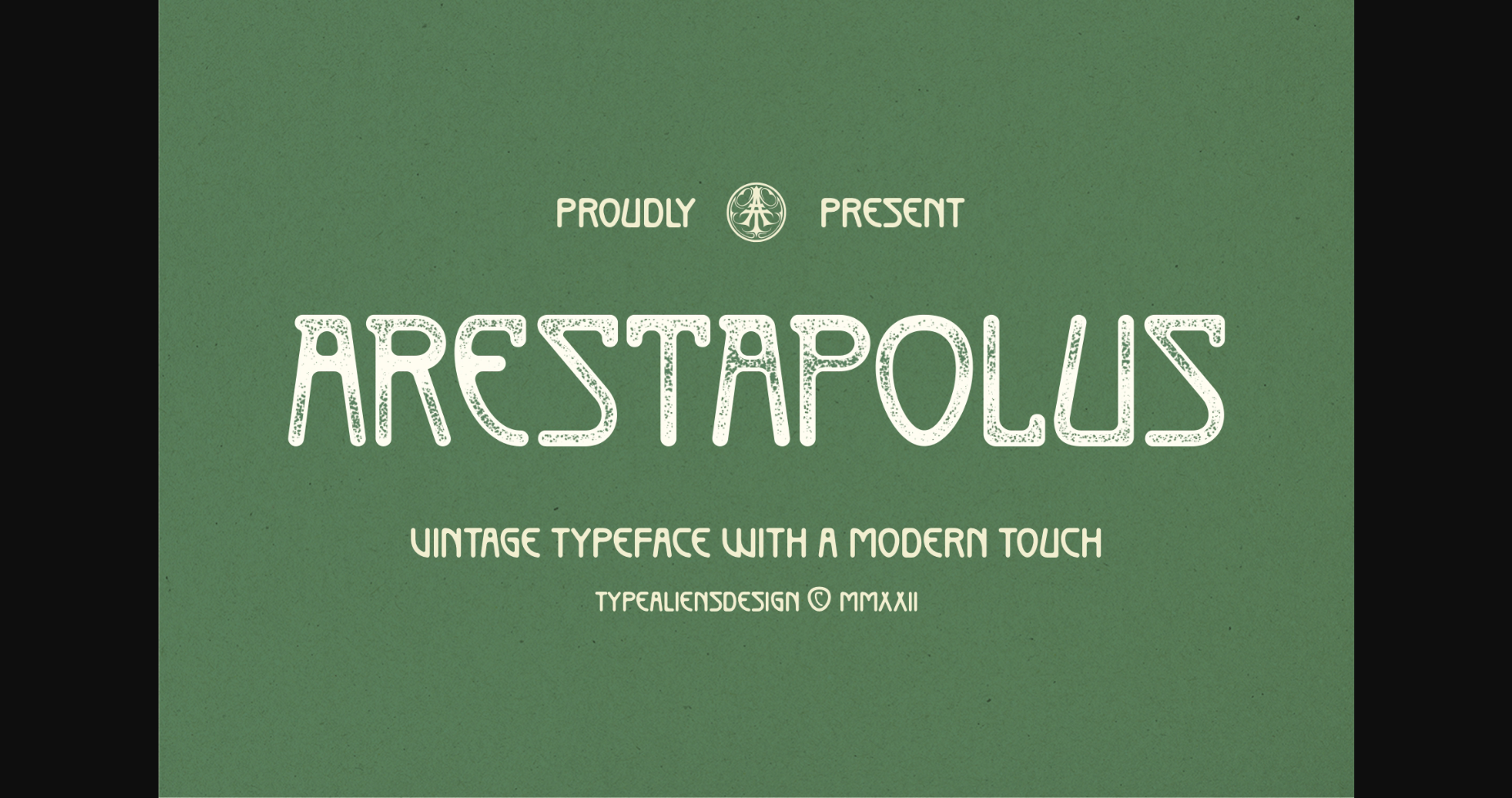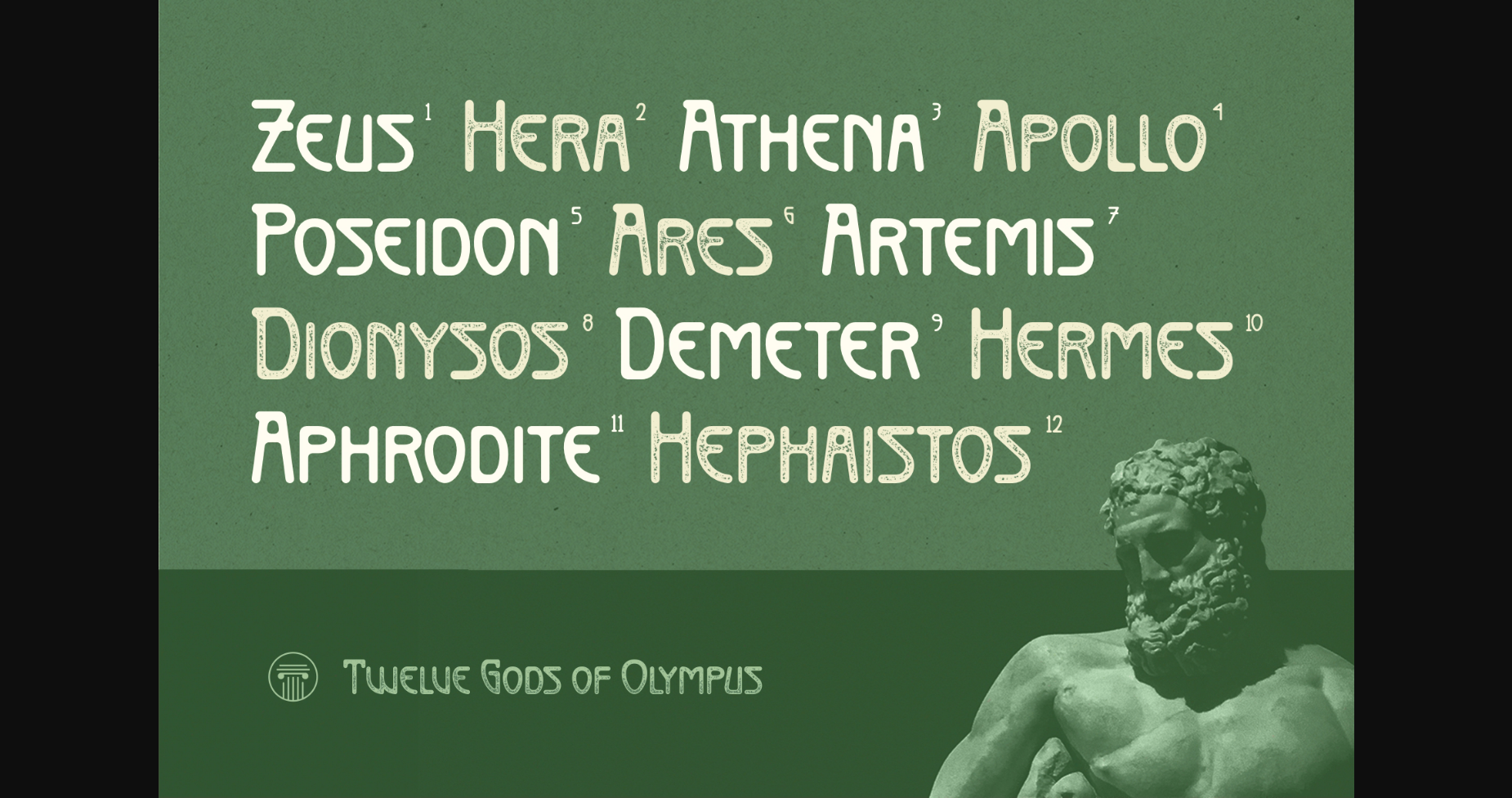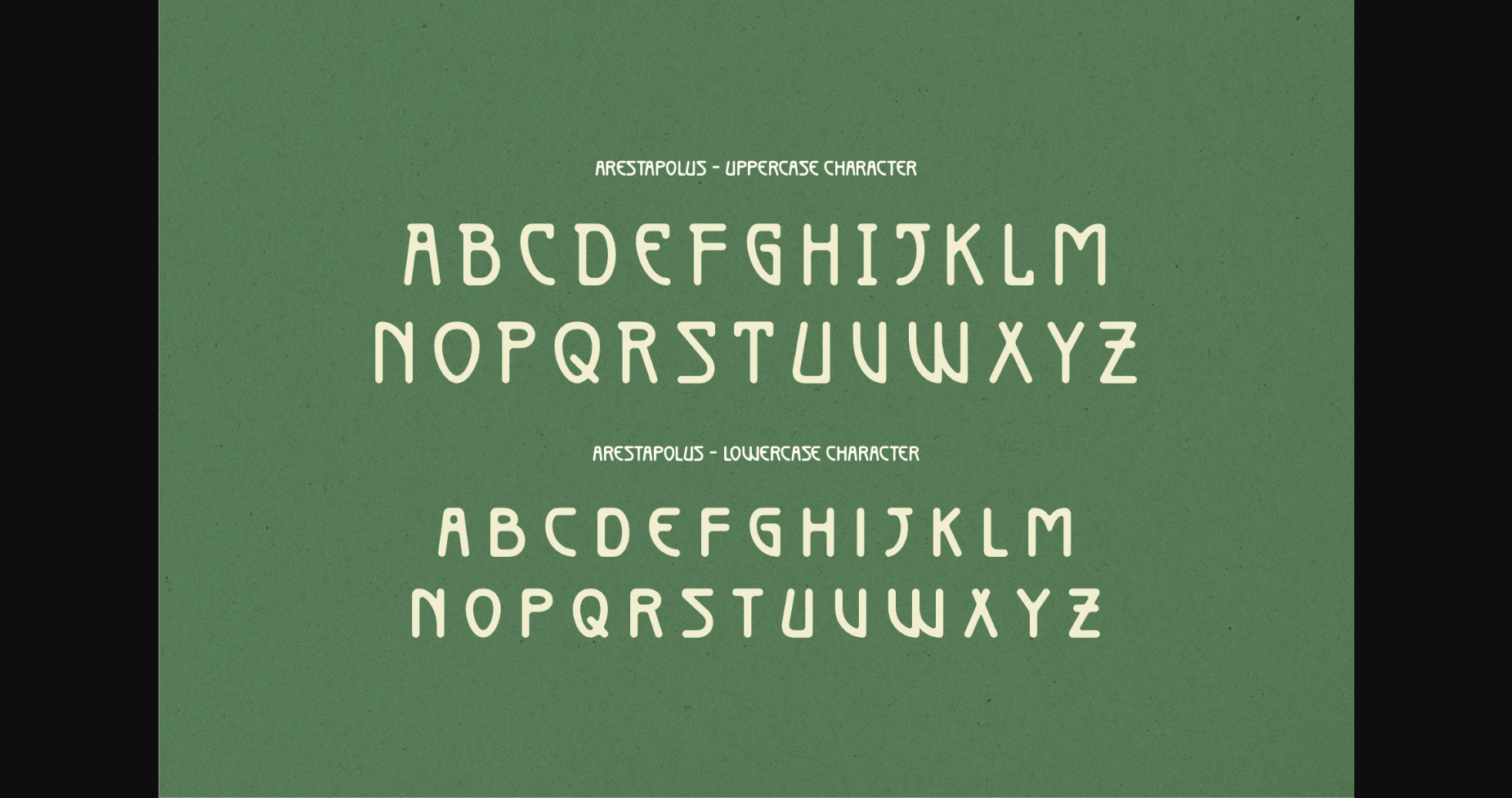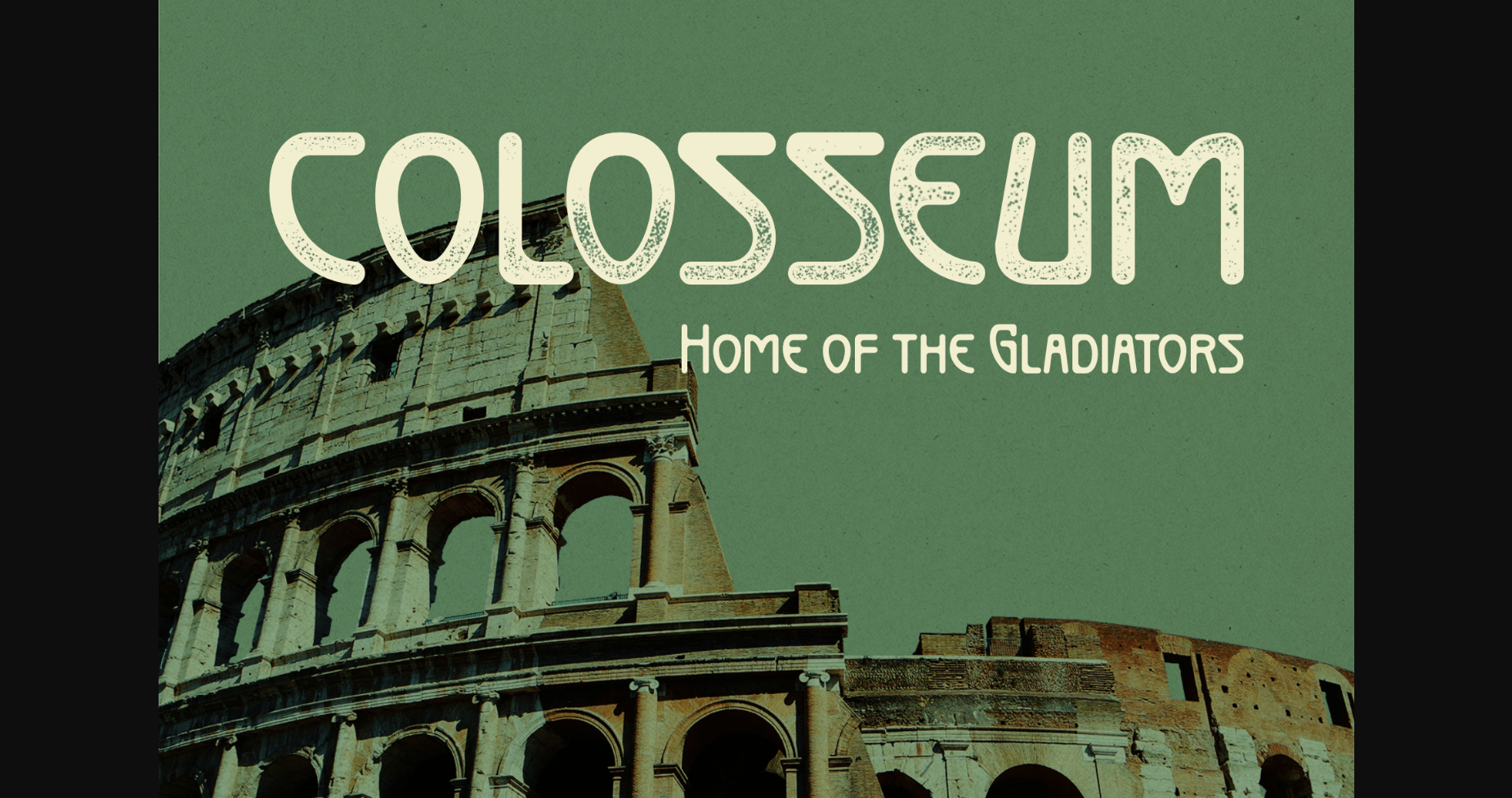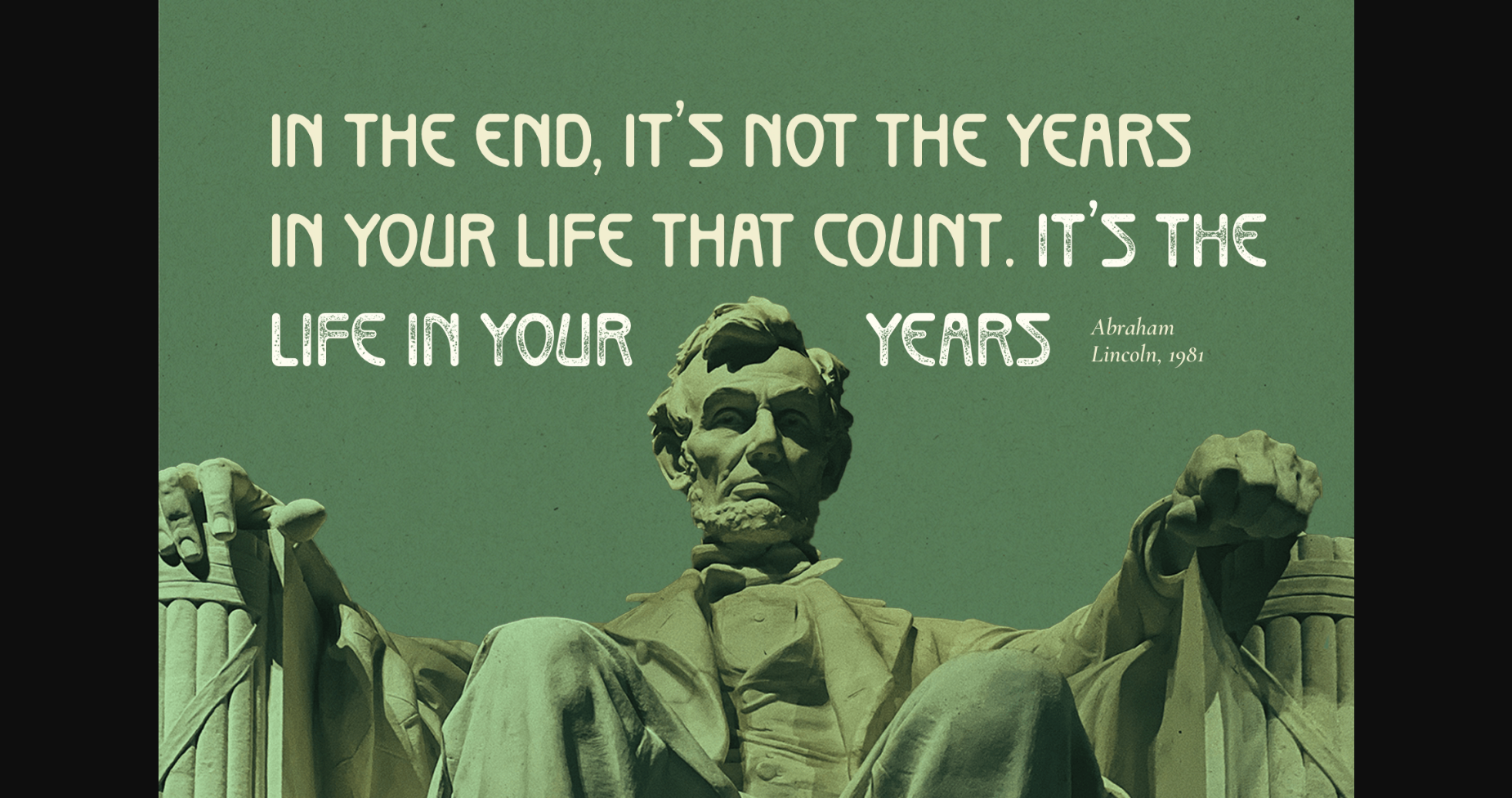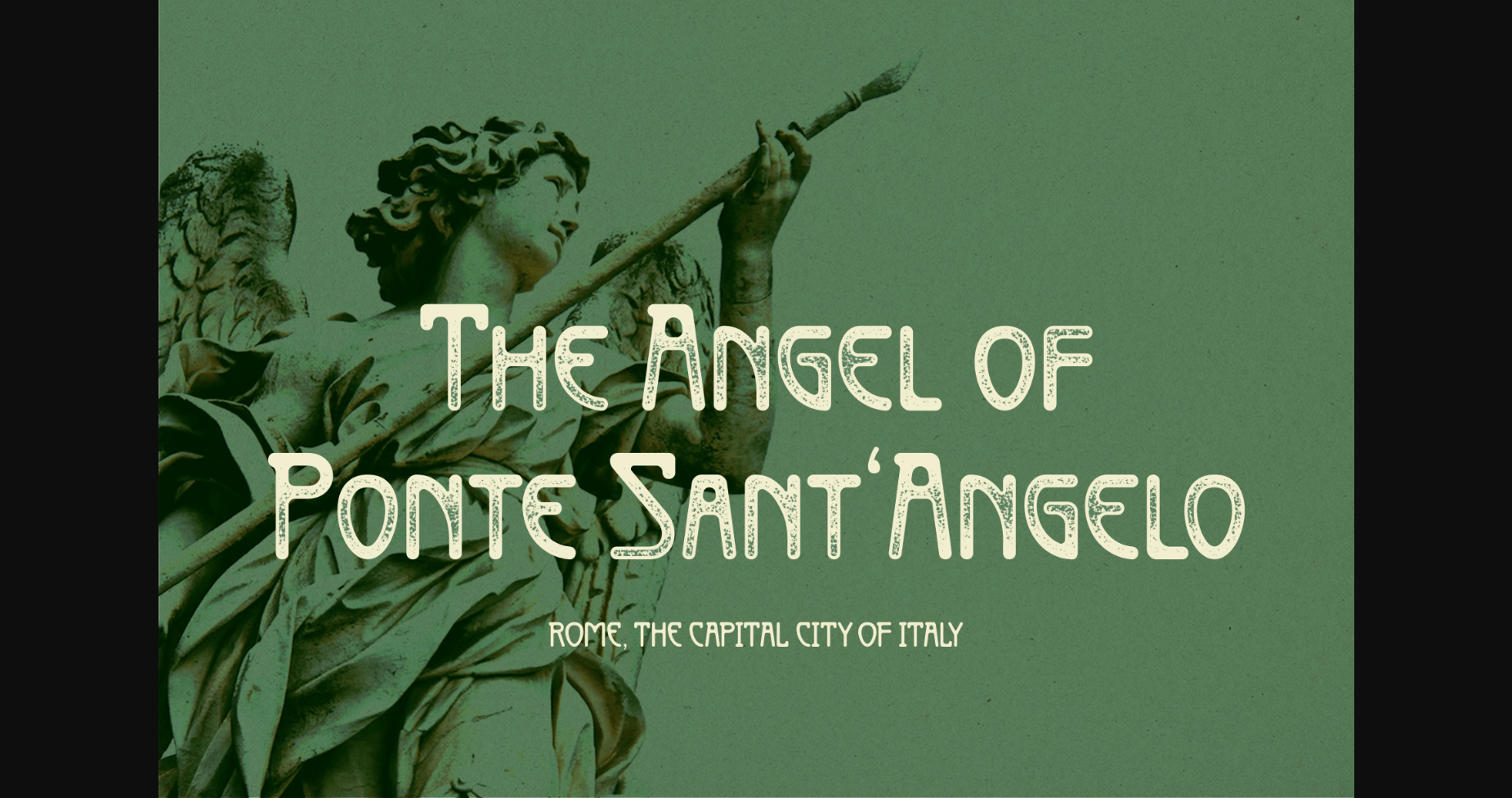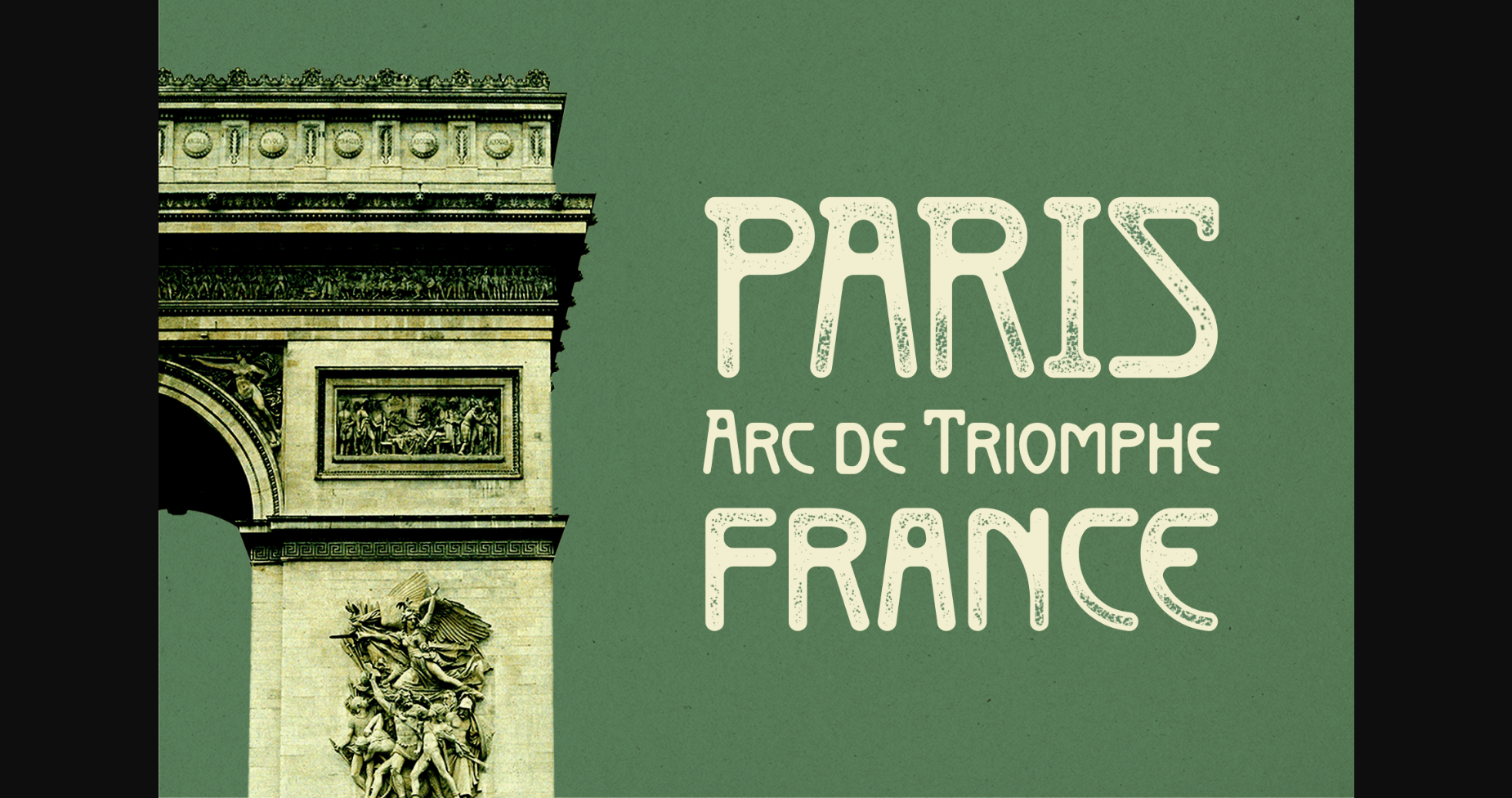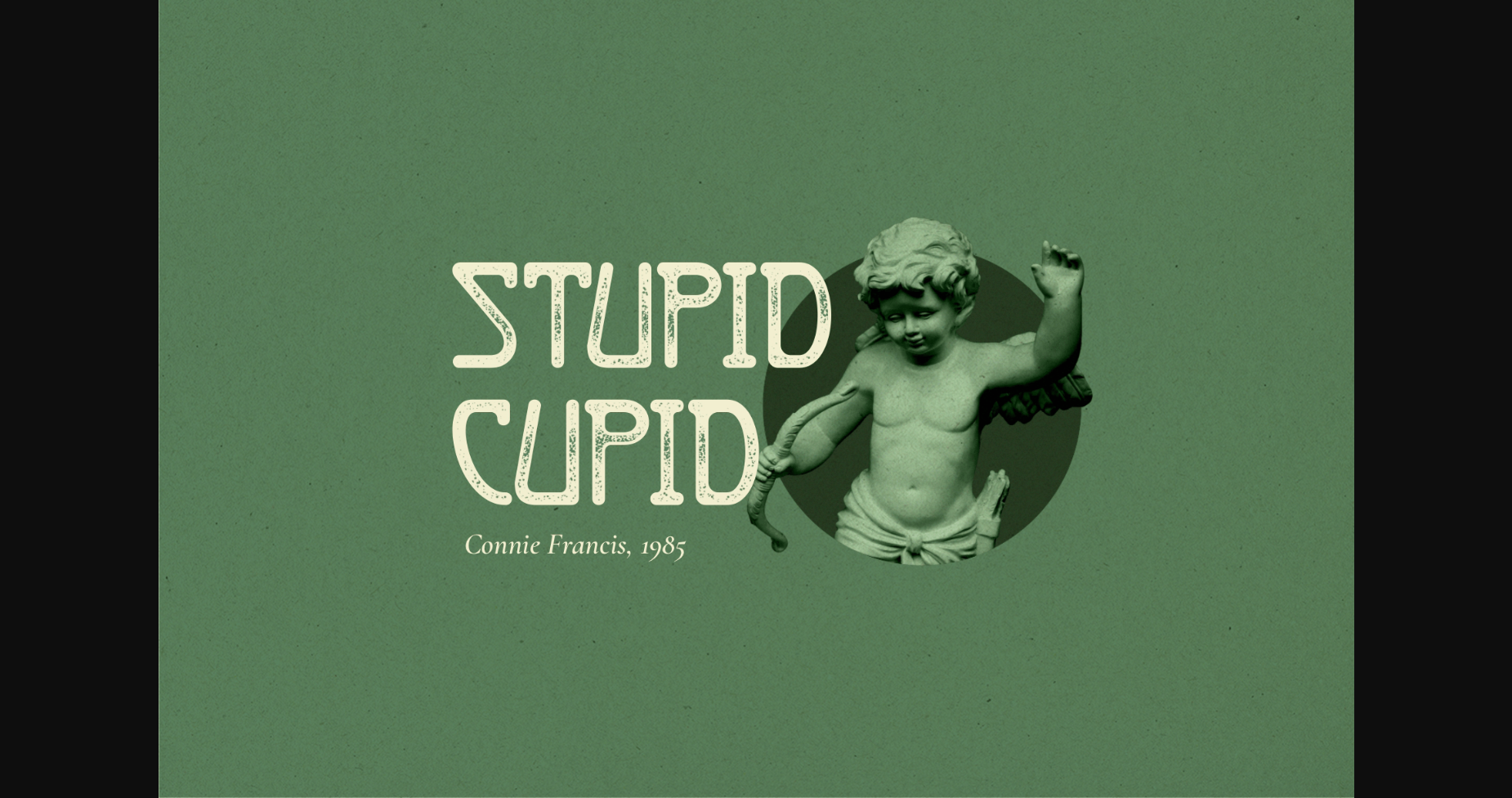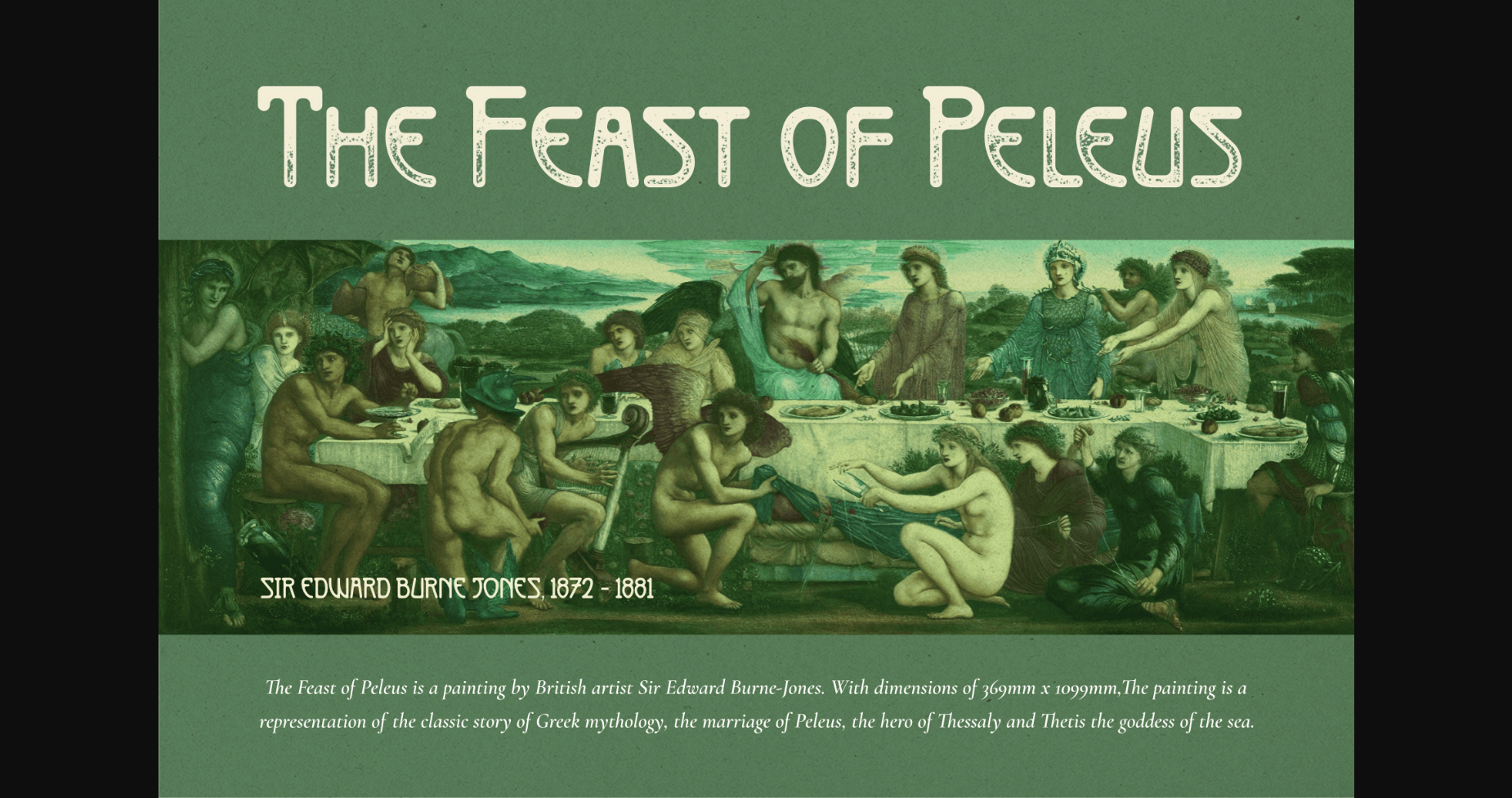
Arestapolus Font
About Arestapolus Font
Arestapolus is a vintage font with a slightly modern style, a font that is primarily a sans serif font with rounded corners. Because it has a modern touch, besides being suitable for vintage designs, it can also be used for modern designs or text that is not too long.
This font is an all-caps font with a lowercase slightly lower than the uppercase. This unique font is great for simple nuanced designs or can also be used to support artistic designs.